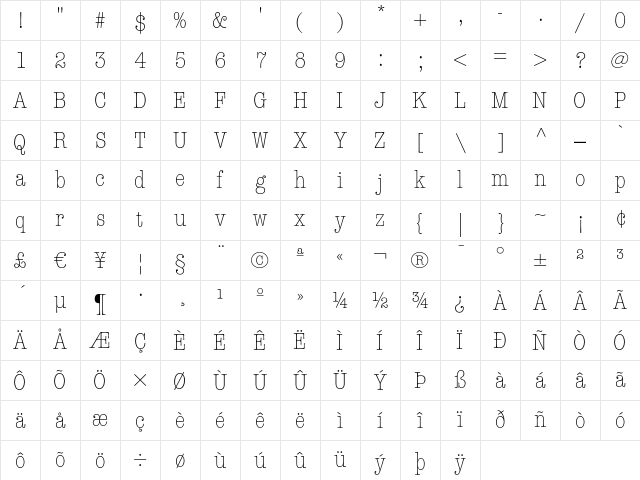
ITC American Typewriter LT Light Condensed
Style: Light Condensed
Complete ITC American Typewriter LT Light Condensed glyph index. Displaying only characters natively supported by ITC American Typewriter LT Light Condensed font.
Design Context for ITC American Typewriter LT
ITC American Typewriter LT uses fixed-width spacing throughout, giving it the structured, systematic character associated with coding environments and technical documentation. Its slender proportions lend an understated elegance to any composition.
Pro Tip: Use ITC American Typewriter LT with slightly increased line-height for extended reading - fixed-width spacing can feel dense in longer passages without extra breathing room.